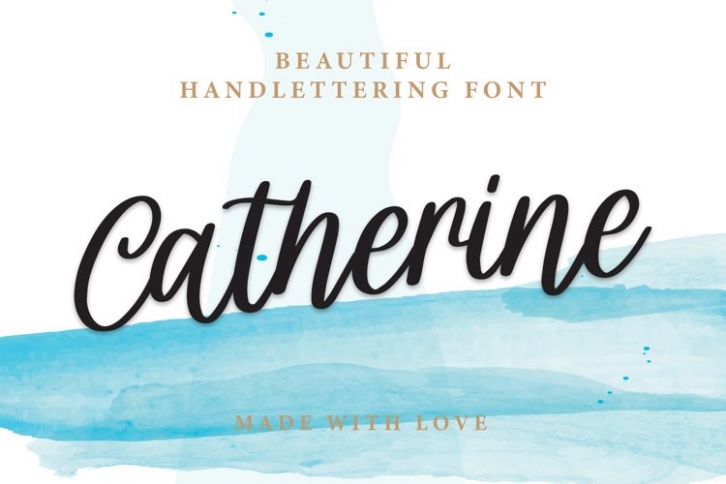
Catherine is a beautiful font that was designed by plusstore. It's a great choice for designers and creatives who need such a font. It was released on August 7, 2021 and the file size is 20.76 MB. Catherine may give a more youthful, expressive and casual look to your project. It is a very beautiful, refined, elegant, and high-quality font.